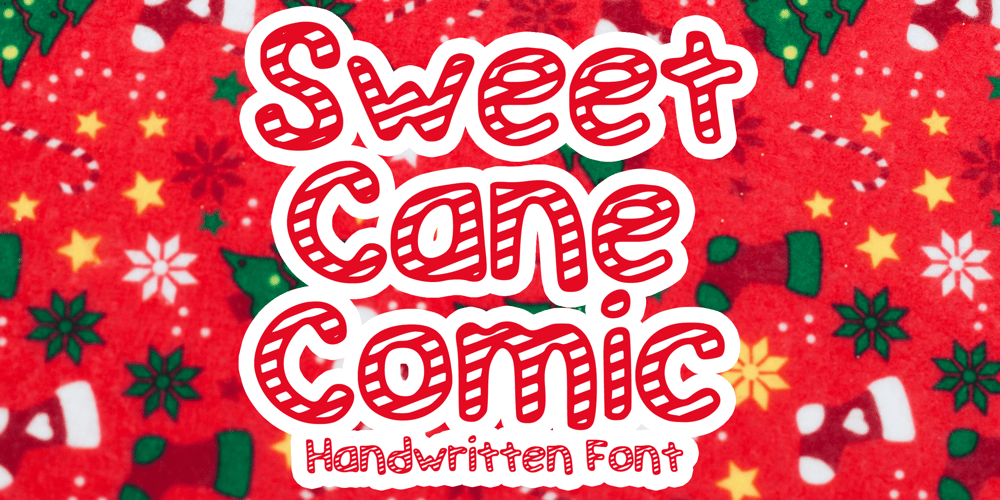
Sweet Cane Comic
Sweet Cane Comic font
Sweet Cane Comic Font Family was designed by Gabriel Valentinus and published by Mvmet. Sweet Cane Comic contains 1 styles and family package options. Sweet Cane Comic is a festive Christmas font. You can use it for anything ranging from t-shirts, kids’ book designs, and greeting cards to stickers and posters, or anything that needs a casual touch. Fall in love with its incredibly versatile style, and use it to create lovely designs!